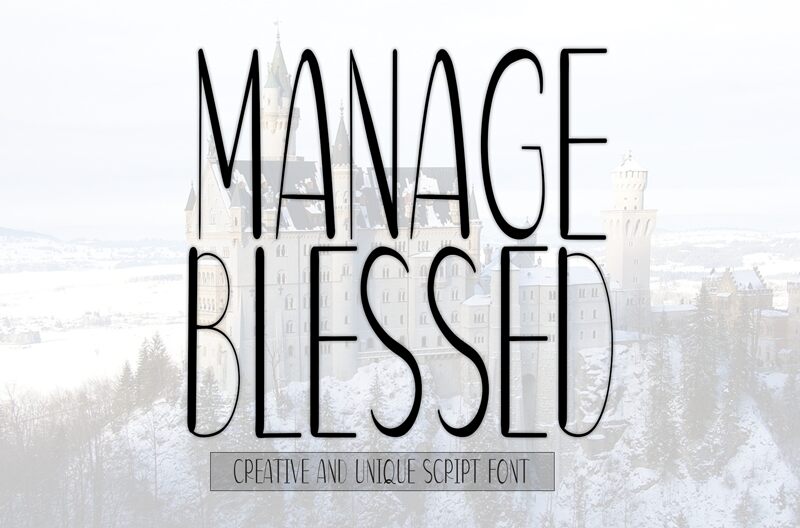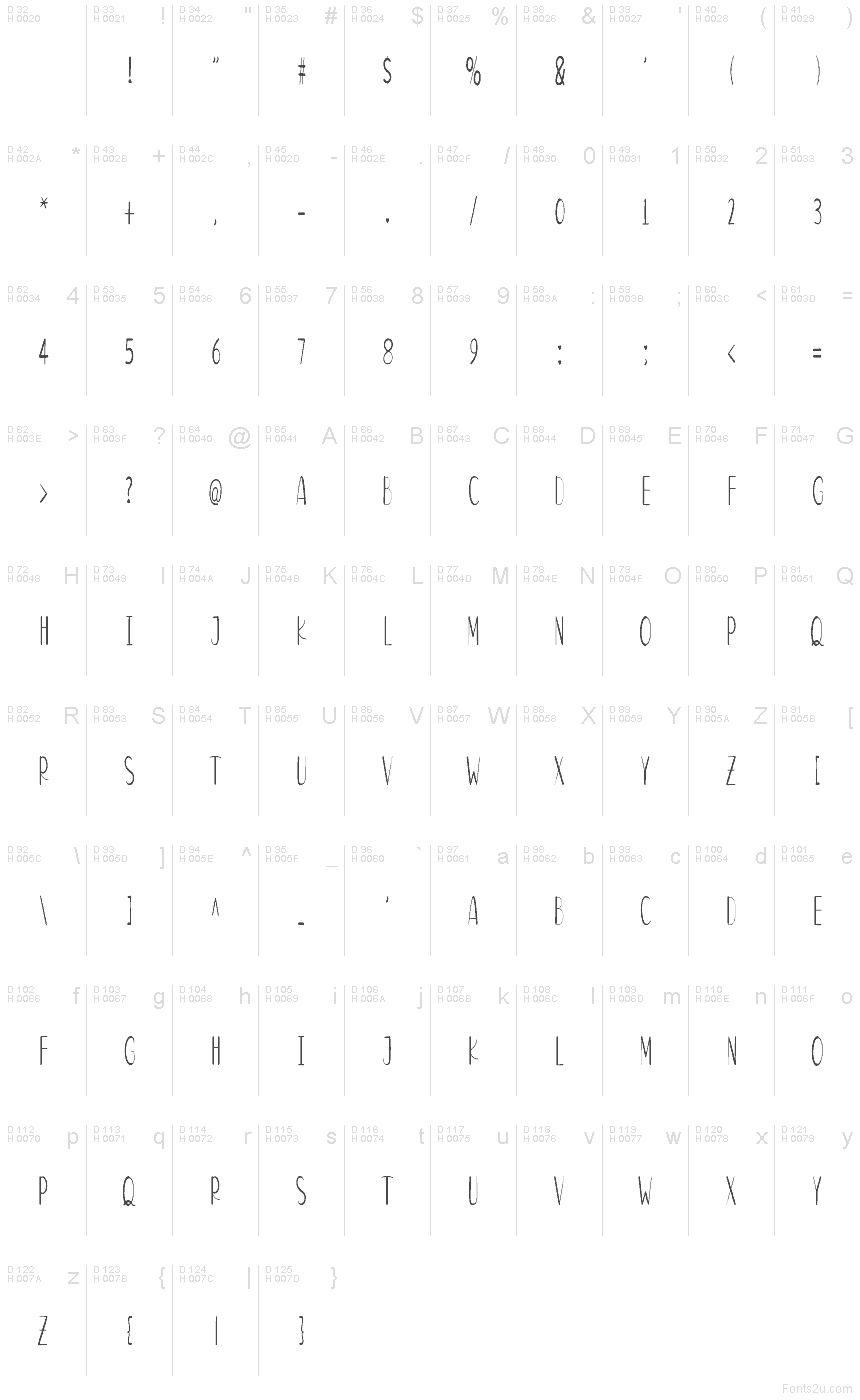
Manage Blessed
Manage Blessed font by creatype designer is a free brush typeface that solves the “too little space, too much text” problem with style. Its ultra-narrow, inky letterforms stretch vertically like tall handwriting, keeping words legible while tucking neatly into tight layouts. The strokes feel lightly scratched and organic rather than polished, giving your designs an effortless, handwritten charm without sacrificing clarity.
Using Manage Blessed, you can squeeze personality into slim banners, Instagram story text, vertical posters, bookmarks, product labels, or minimalist quotes where every pixel counts. This free font shines in all-caps settings, especially at medium to large sizes where its wiry texture can breathe. For longer body copy, pair it with a clean geometric sans to balance its slender, hand-drawn character.